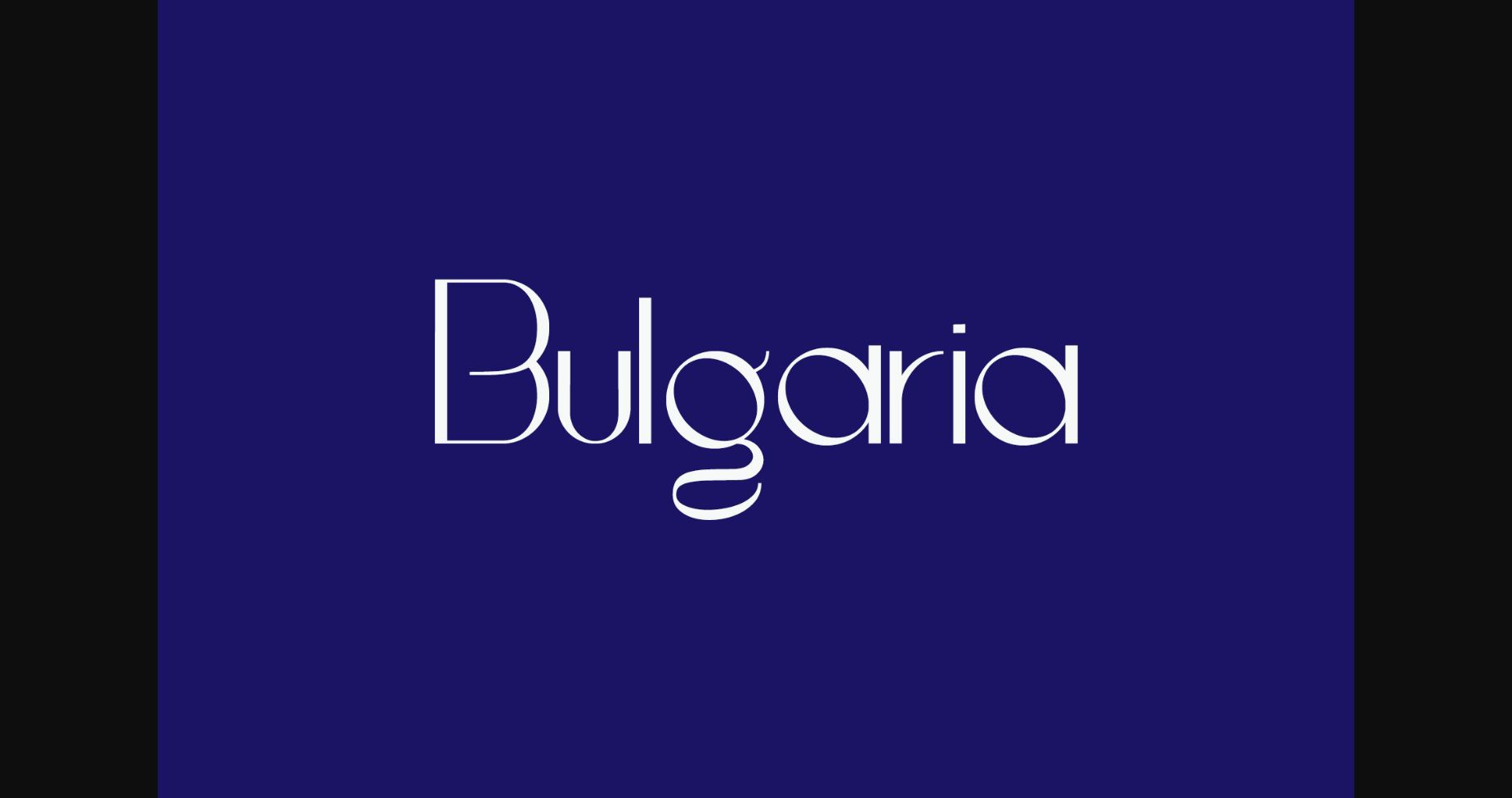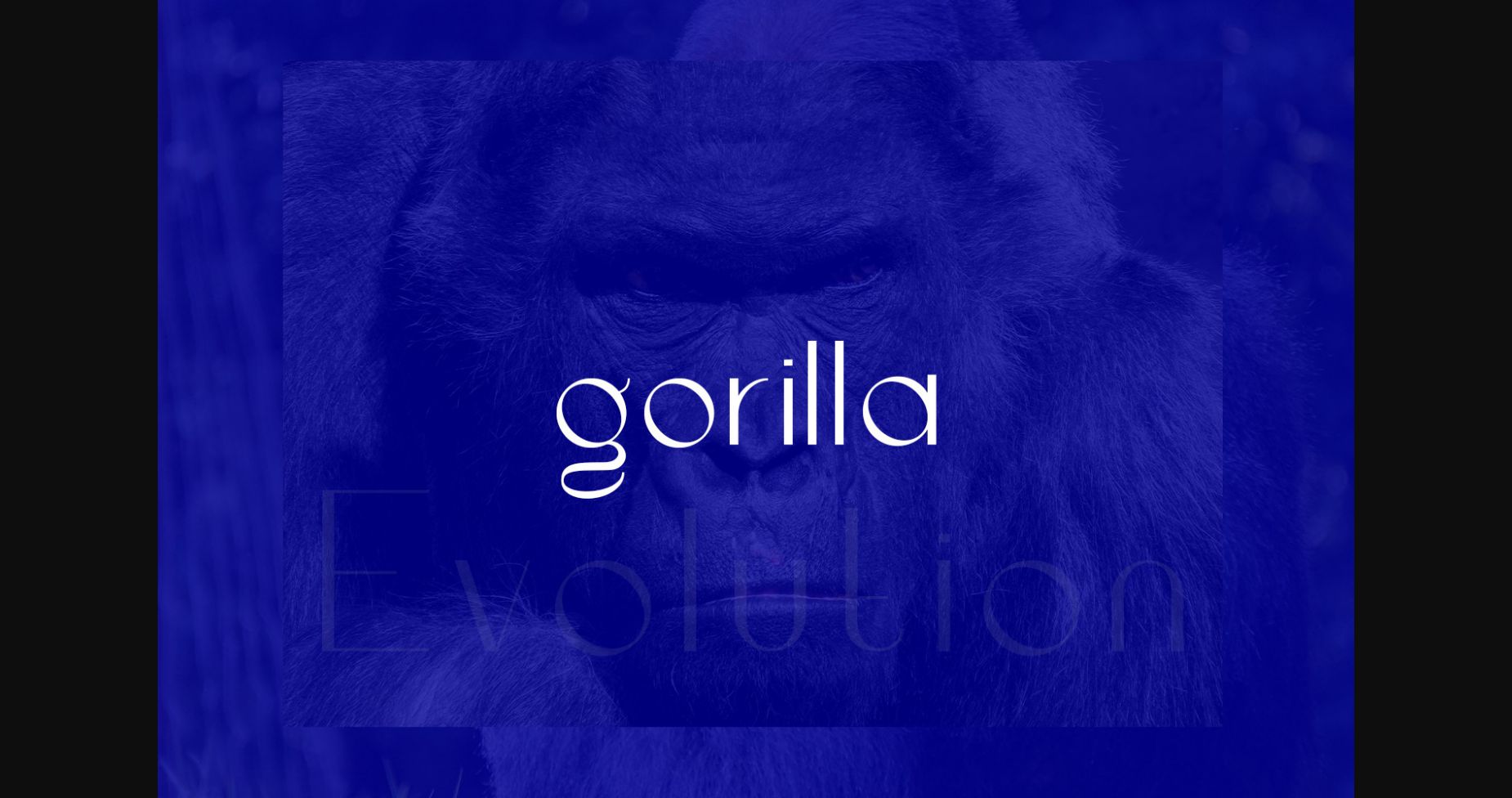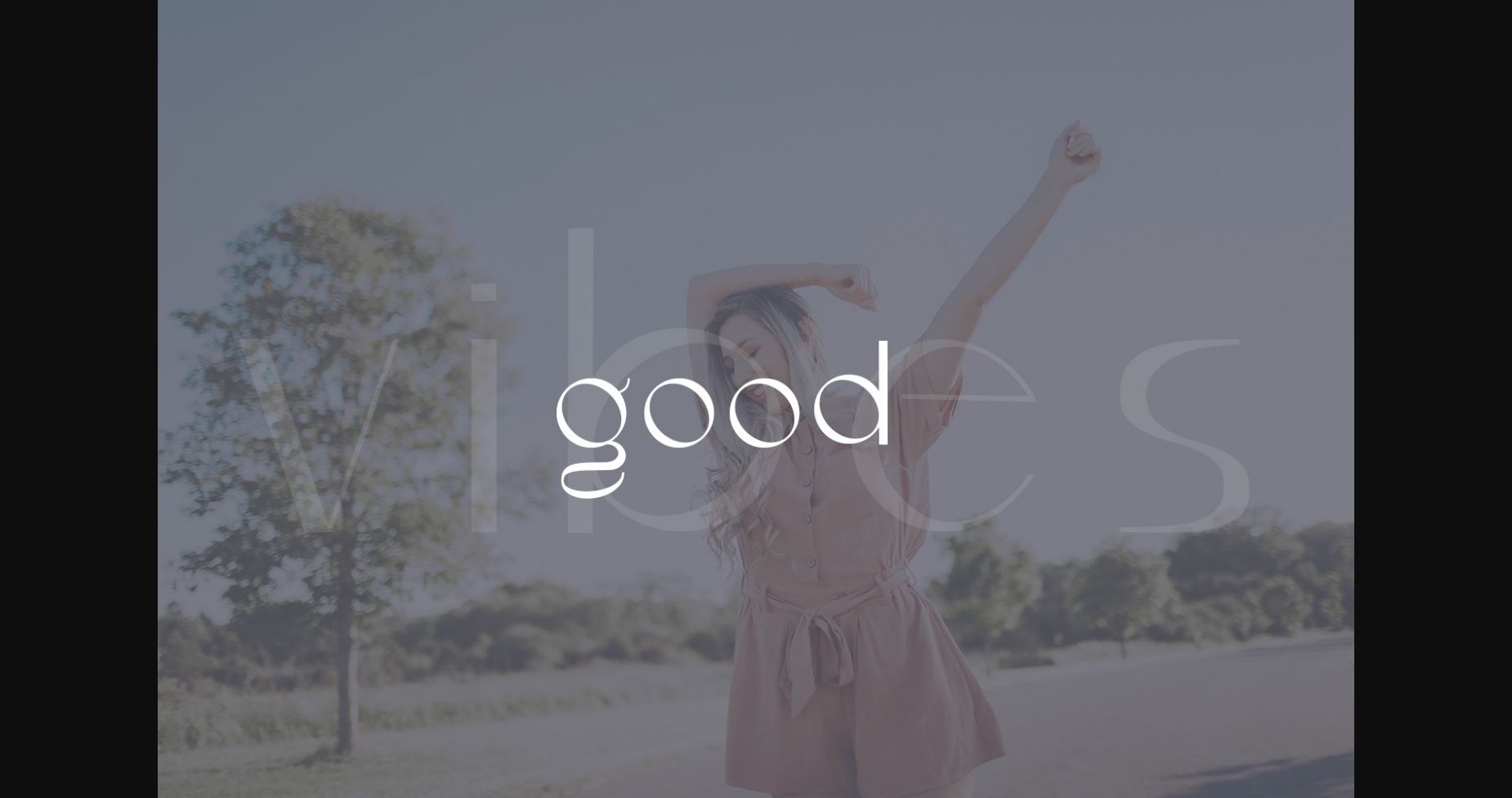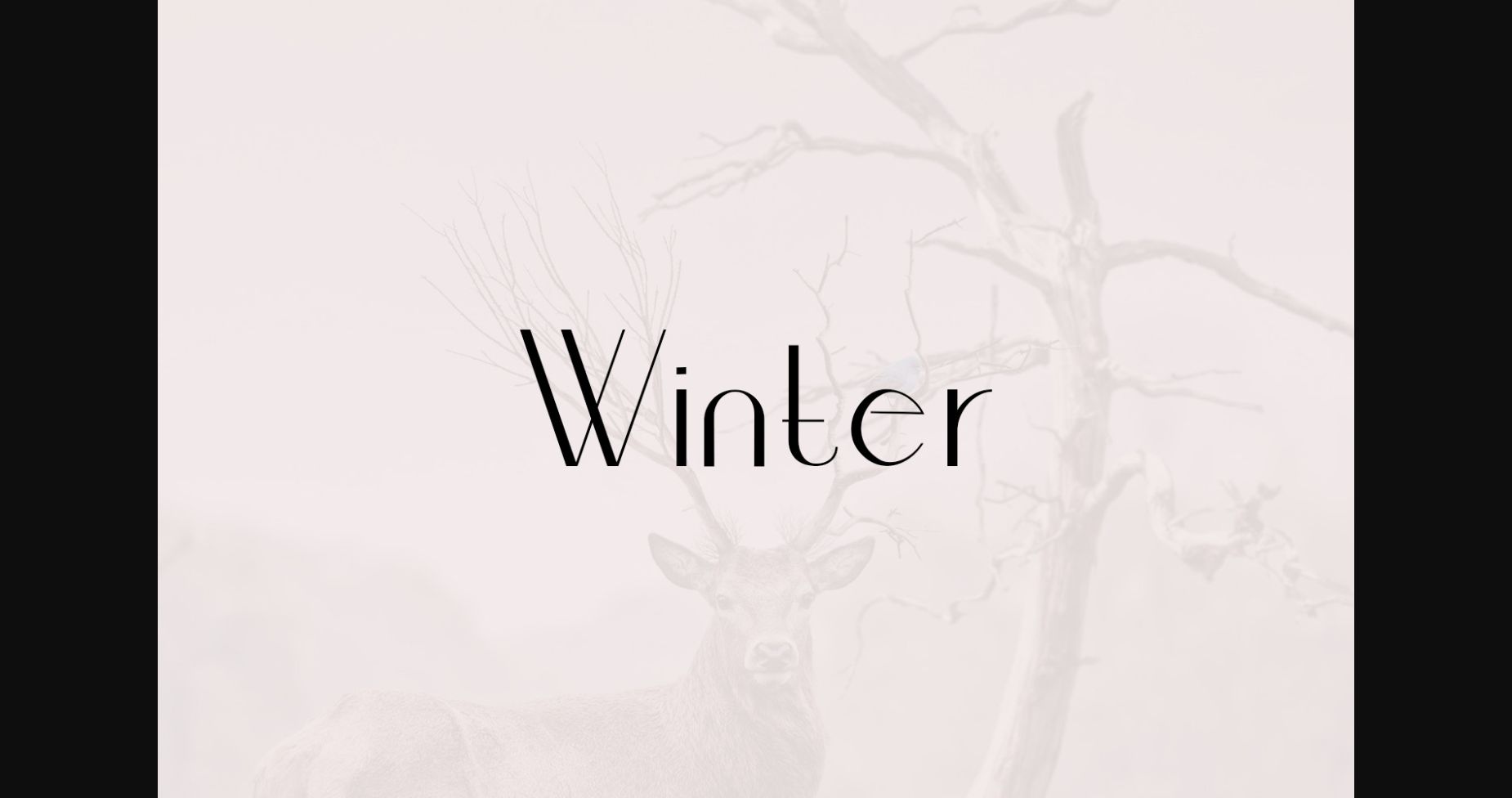
About Bulgaria Font
Bulgaria is a minimal and neat sans serif font. It can easily be matched to an incredibly large set of projects, so add it to your creative ideas and notice how it makes them stand out!